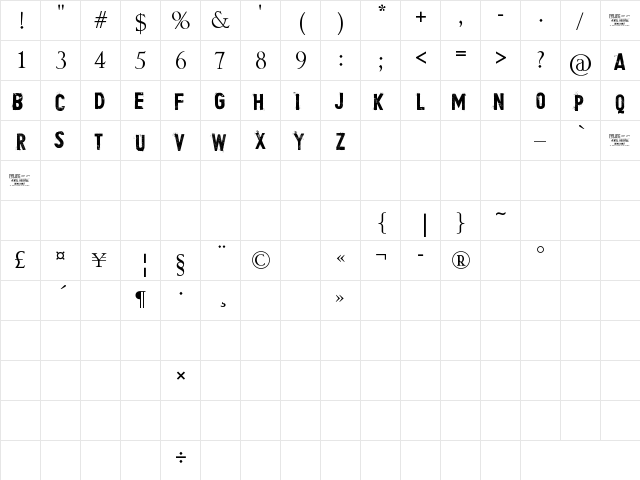
Mental Hospital DEMO by Marta v Regular
| Designer | Marta Waniek |
Design Context for Mental Hospital DEMO by Marta v Typeface
Mental Hospital DEMO by Marta v is a composed and adaptable typeface that performs quietly and consistently across a wide range of design contexts.
Pro Tip: Use Mental Hospital DEMO by Marta v in both headline and body roles to test its range before committing to a single application.